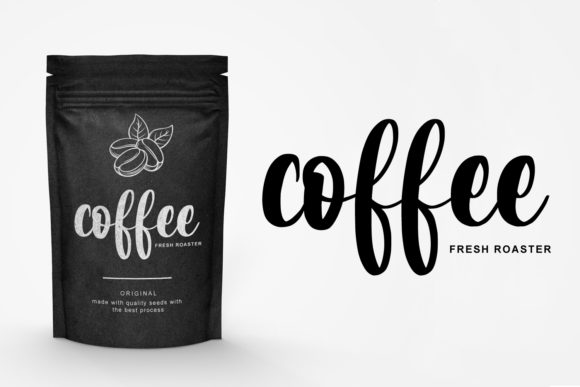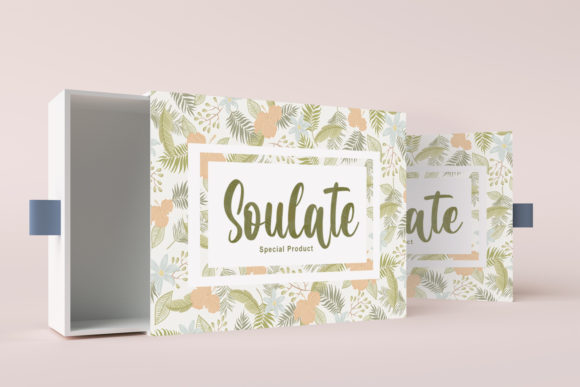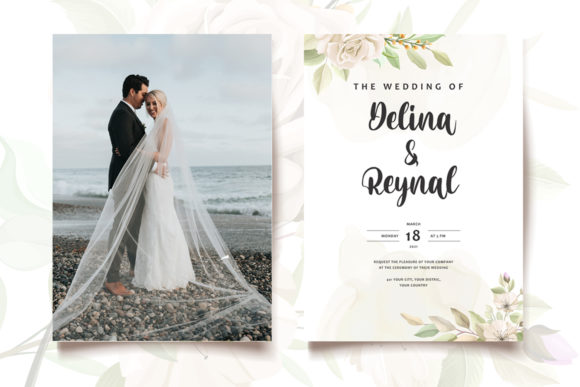
Introduction to Meitha Font
Meitha is an incredibly beautiful script font.
It has a classy, elegant and modern look that can be used for logos, branding, invitations, stationery, wedding designs, social media posts, and much more .
Meitha Font offers exceptional quality and versatility, making it a valuable addition to your design toolkit. Whether you’re creating for personal projects or commercial use, Meitha Font delivers professional results.